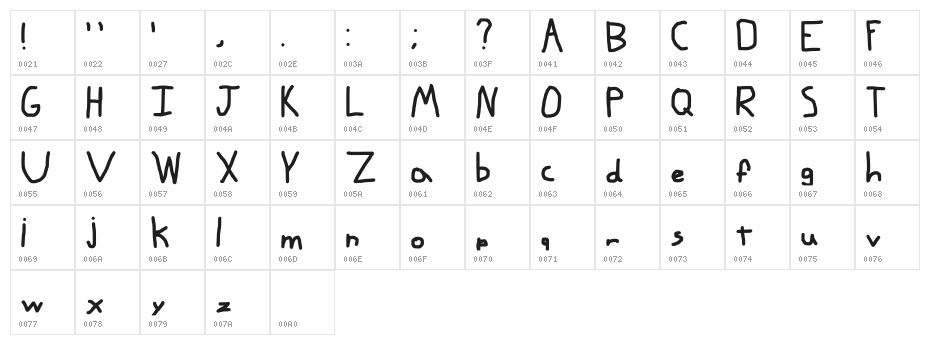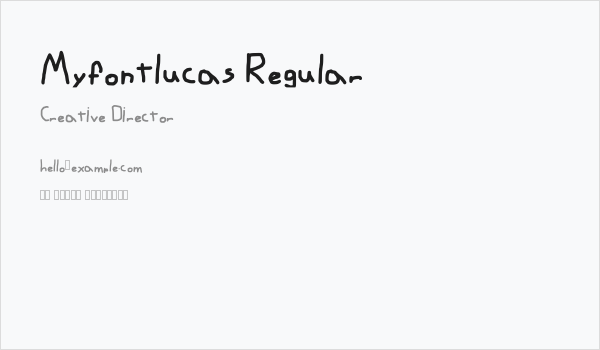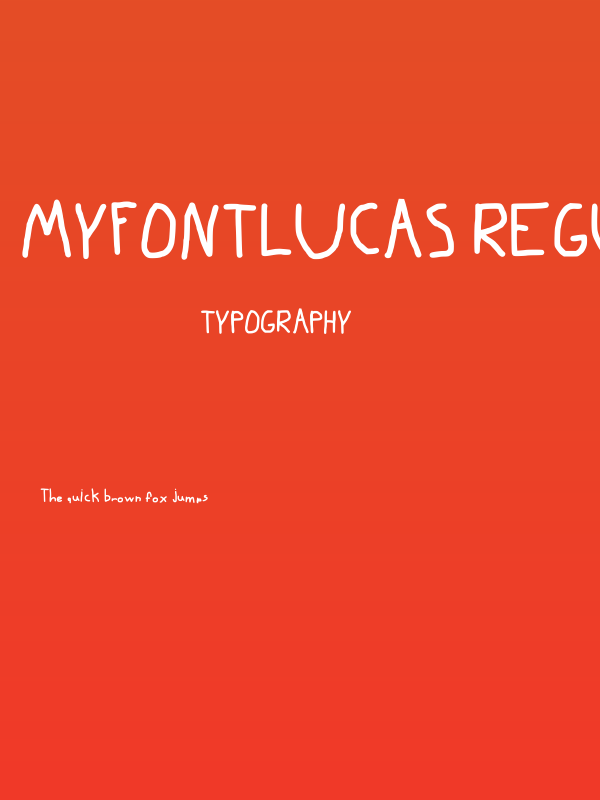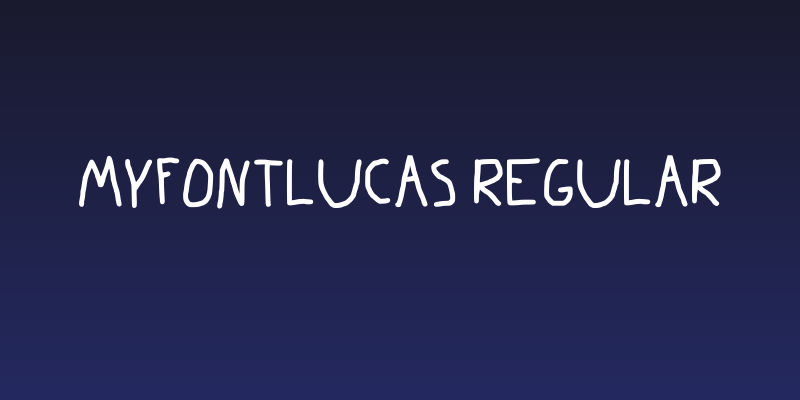
Myfontlucas Regular Font
Myfontlucas Regular Description
This font features a playful and informal handwritten style, characterized by its irregular strokes and casual appearance. The letters have a slightly uneven baseline, giving it a whimsical and approachable feel. The uppercase and lowercase letters are distinct, with the uppercase being slightly more structured while still maintaining a relaxed vibe. The numbers and special characters follow the same informal style, making this font suitable for projects that require a personal touch. The overall design is reminiscent of casual handwriting, making it perfect for creative and fun applications.
| Proposed Projects | Ideal for children's books, greeting cards, personal blogs, and creative branding projects. |